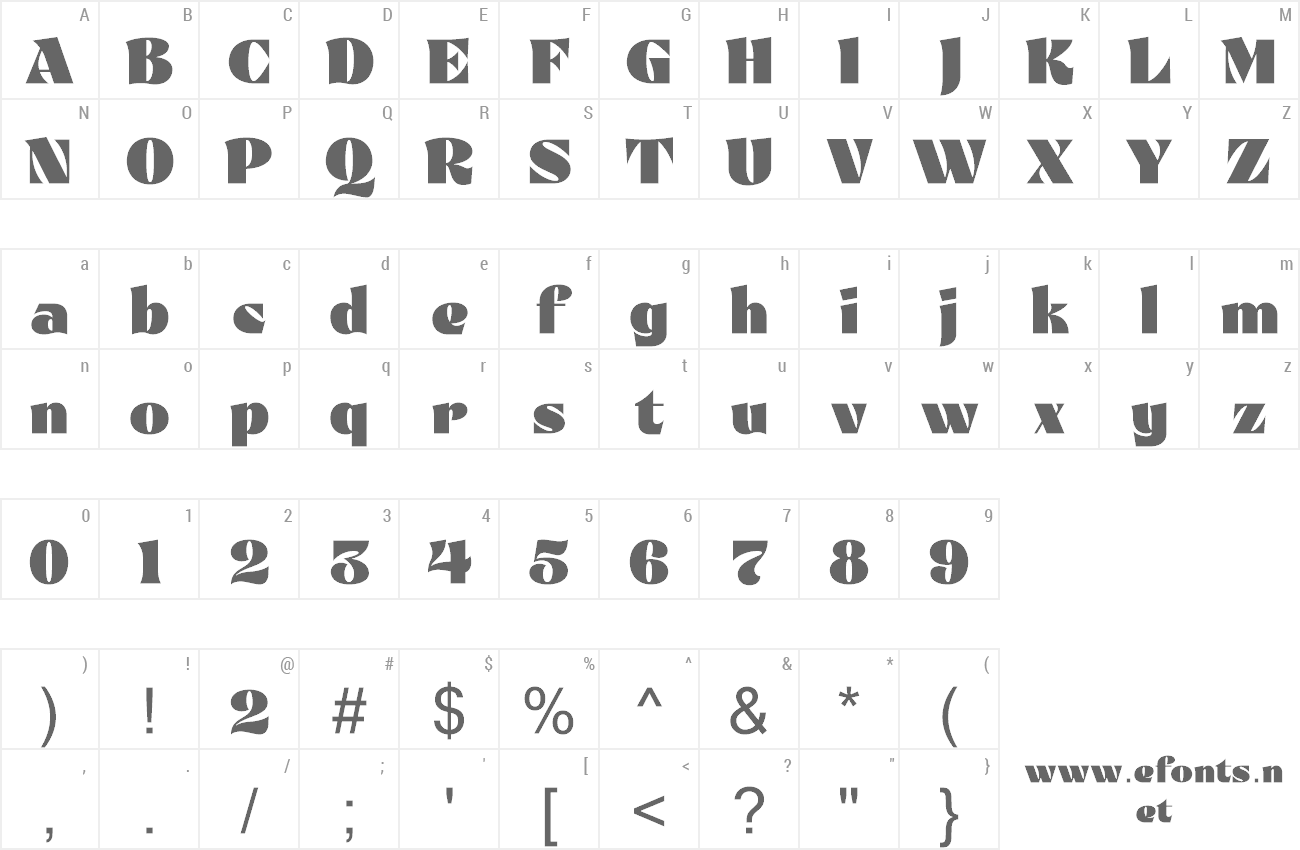
Preview and download Ritualist Font. Created by Justin Penner in Fancy Retro styles with Demo license.
| Font name: | Ritualist |
| Author: | Justin Penner |
| Note by Justin Penner | |